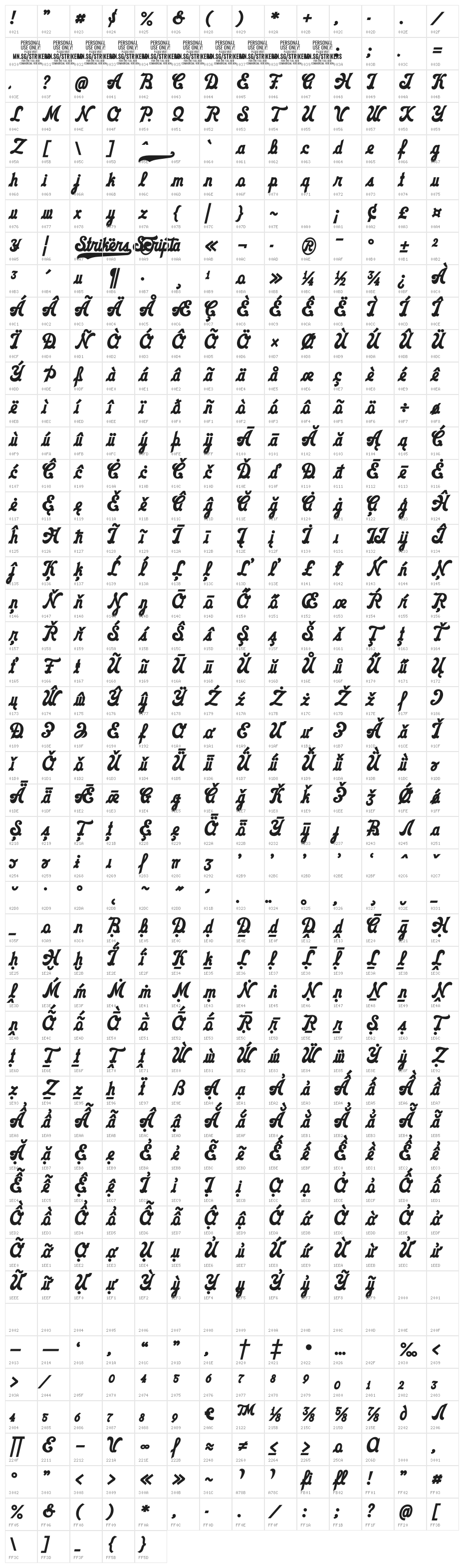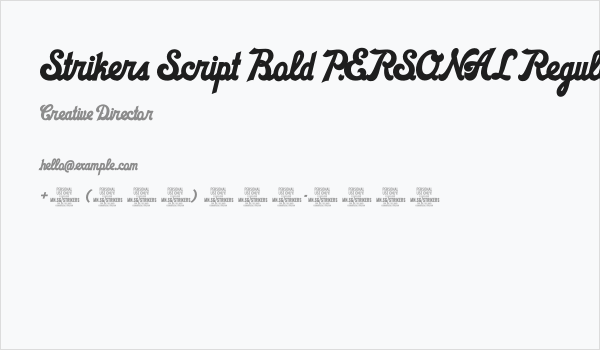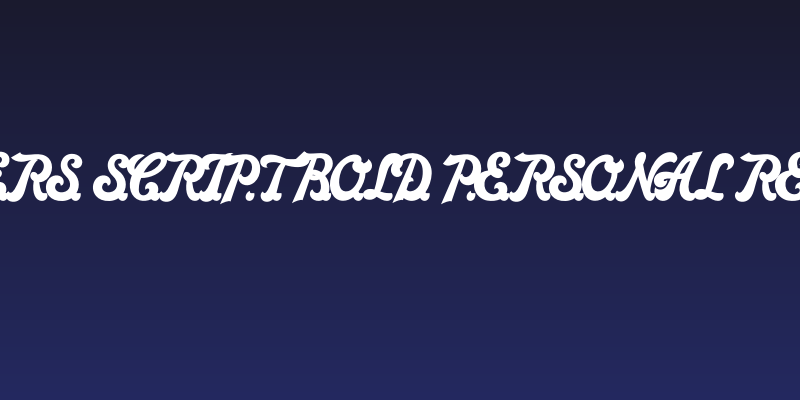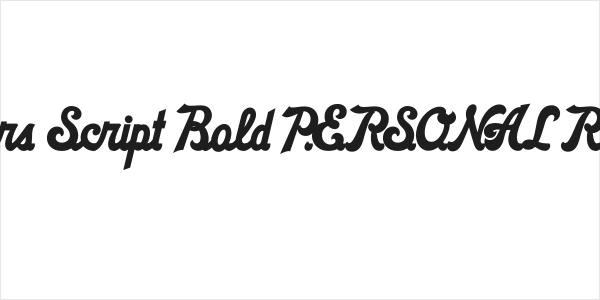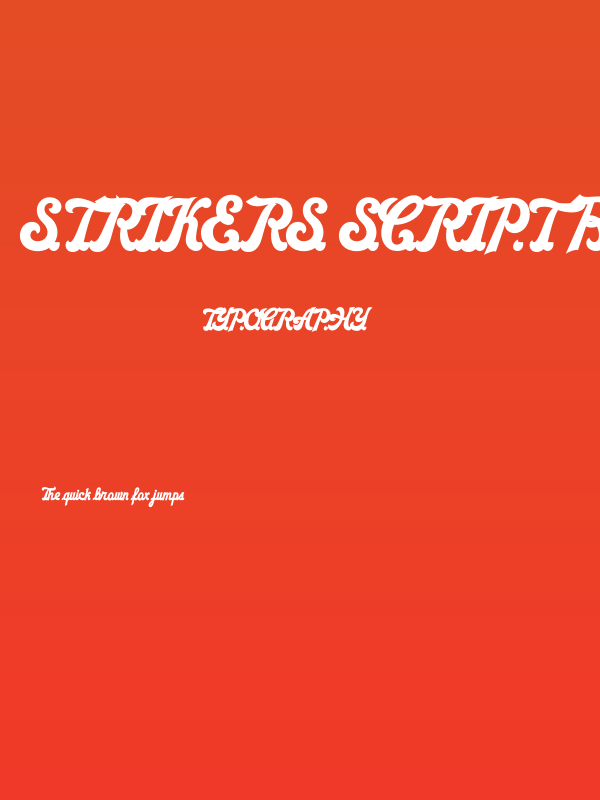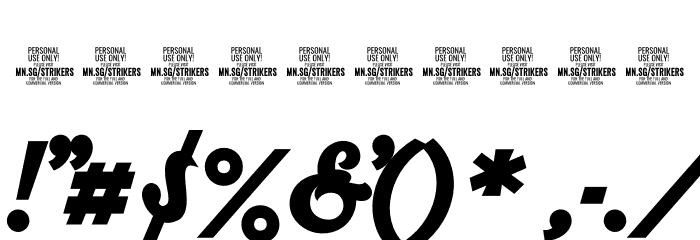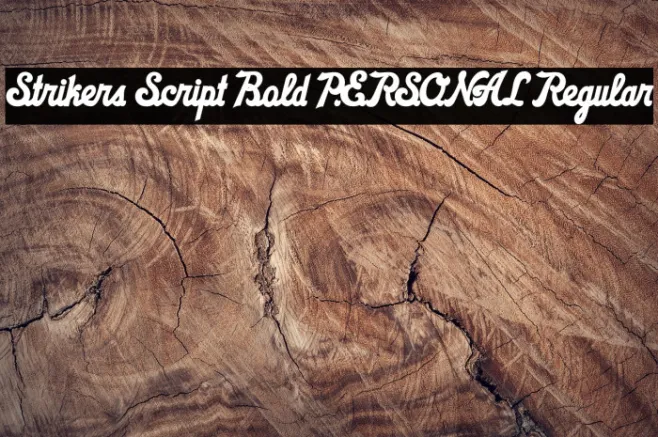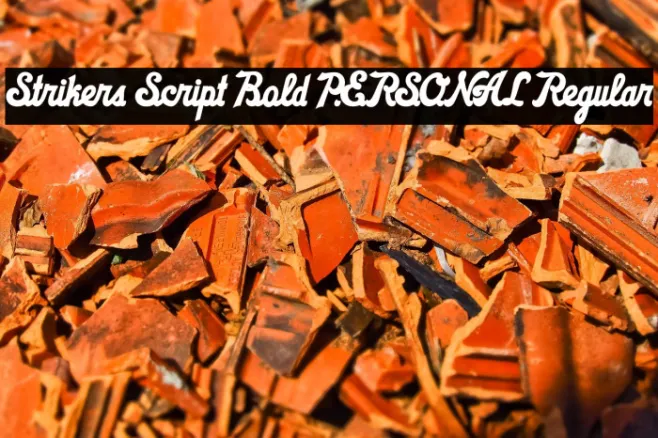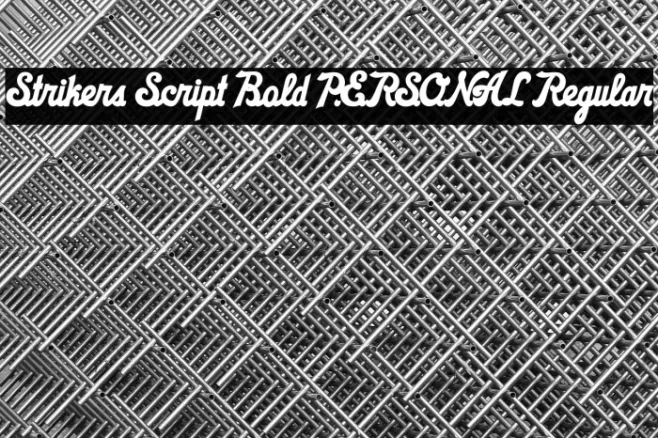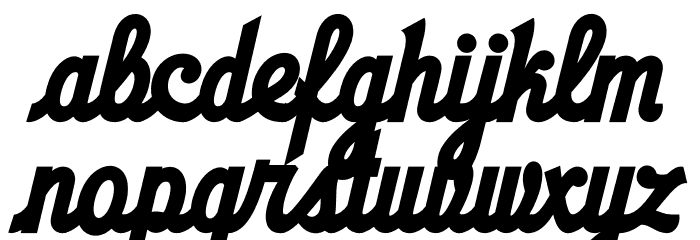
Strikers Script Bold PERSONAL Regular Font
Strikers Script Bold PERSONAL Regular Description
This font features a bold, script style with a dynamic and energetic flow. The characters are interconnected, creating a seamless and fluid appearance. The uppercase letters exhibit a strong presence with their thick strokes and slight slant, while the lowercase letters maintain a consistent rhythm and balance. The numerals and special characters are crafted with the same boldness, ensuring uniformity across all glyphs. The overall design exudes a sense of movement and vitality, making it ideal for projects that require a touch of flair and expressiveness.
| Proposed Projects | Ideal for branding, logos, posters, and any design needing a bold, expressive touch. |